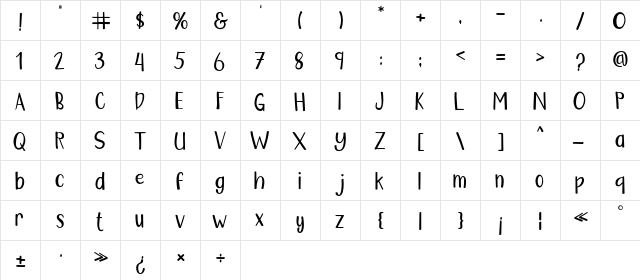
Ciscopic Regular
Design Context for Ciscopic Typeface
Ciscopic is a composed and adaptable typeface that performs quietly and consistently across a wide range of design contexts.